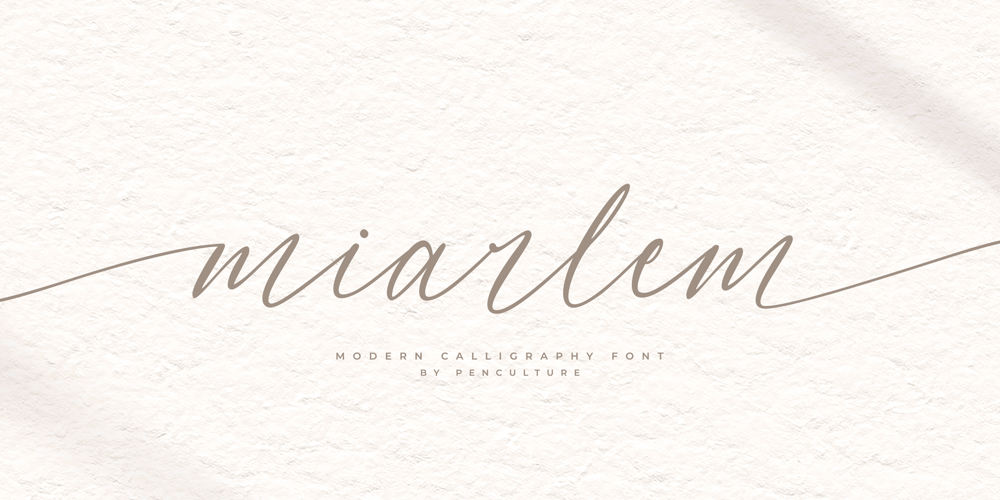
Miarlem Font Family was designed by Revo Farsiky and published by Pen Culture. Miarlem contains 1 styles and family package options. Miarlem is a modern calligraphy font that perfect for branding, wedding, apparel and many other. This font comes with gorgeous uppercase and lowercase, punctuation, multilingual language. This font also equipped with beautiful beginning and ending tail and ligature which will be perfect for your design project.I really hope you enjoy it – please do let me know what you think, comments & likes are always hugely welcomed and appreciated. More importantly, please don’t hesitate to drop me a message if you have any issues or queries.Thank you